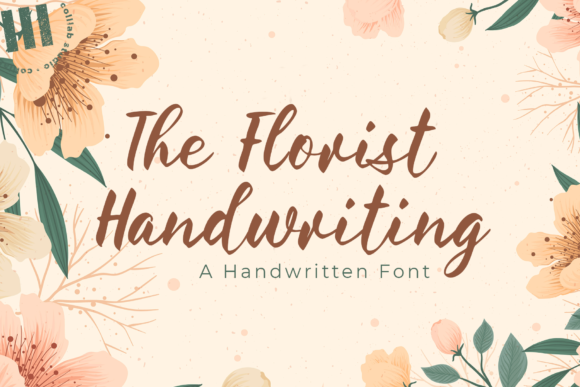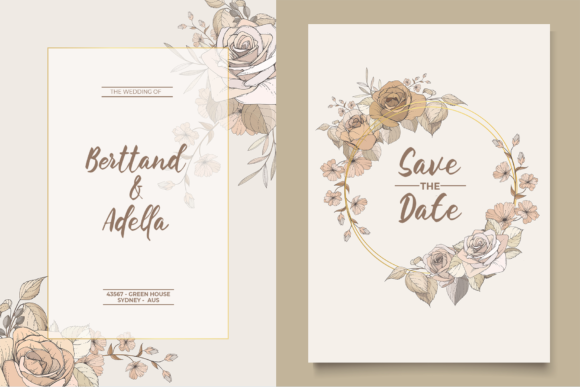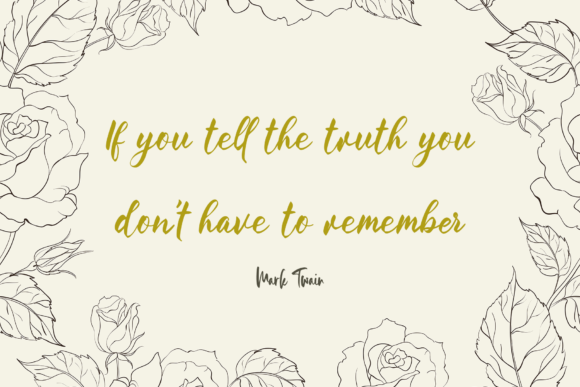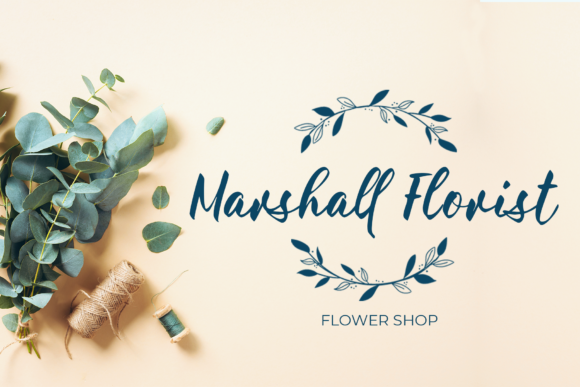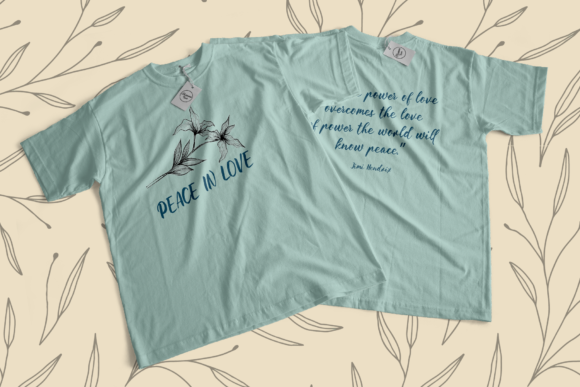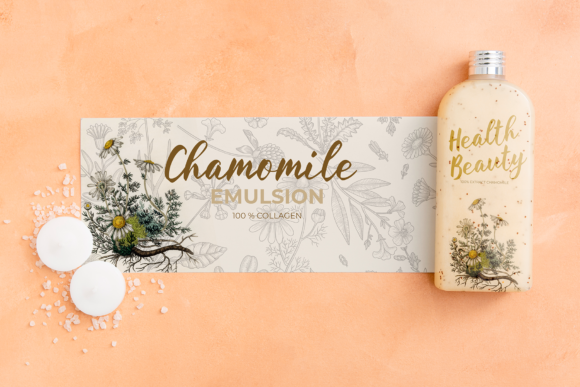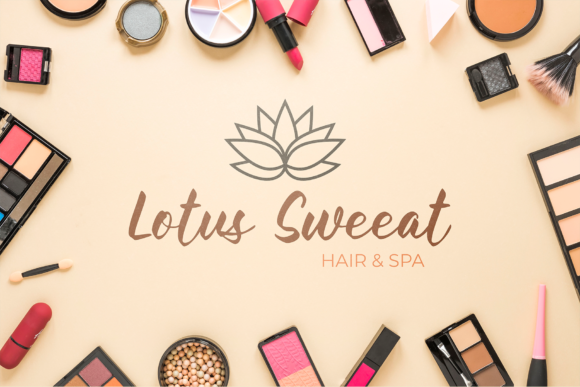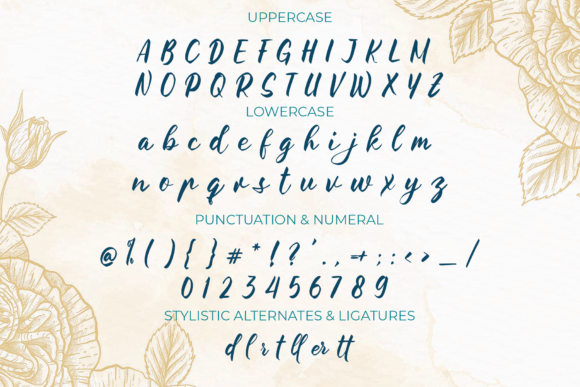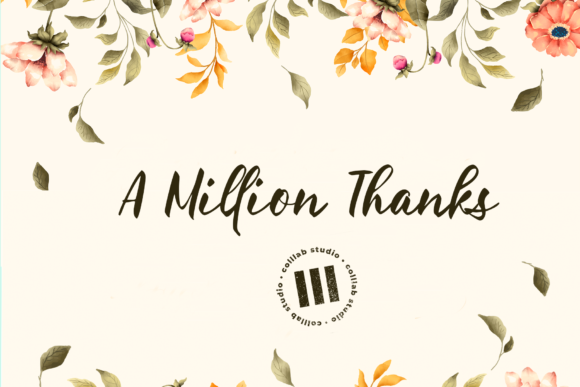
The Florist Handwriting is an incredibly distinct, delicate and timeless handwritten font. It looks stunning on wedding invitations, thank you cards, quotes, greeting cards, logos, business cards and every other design which needs a handwritten touch.
The Florist Handwriting Font